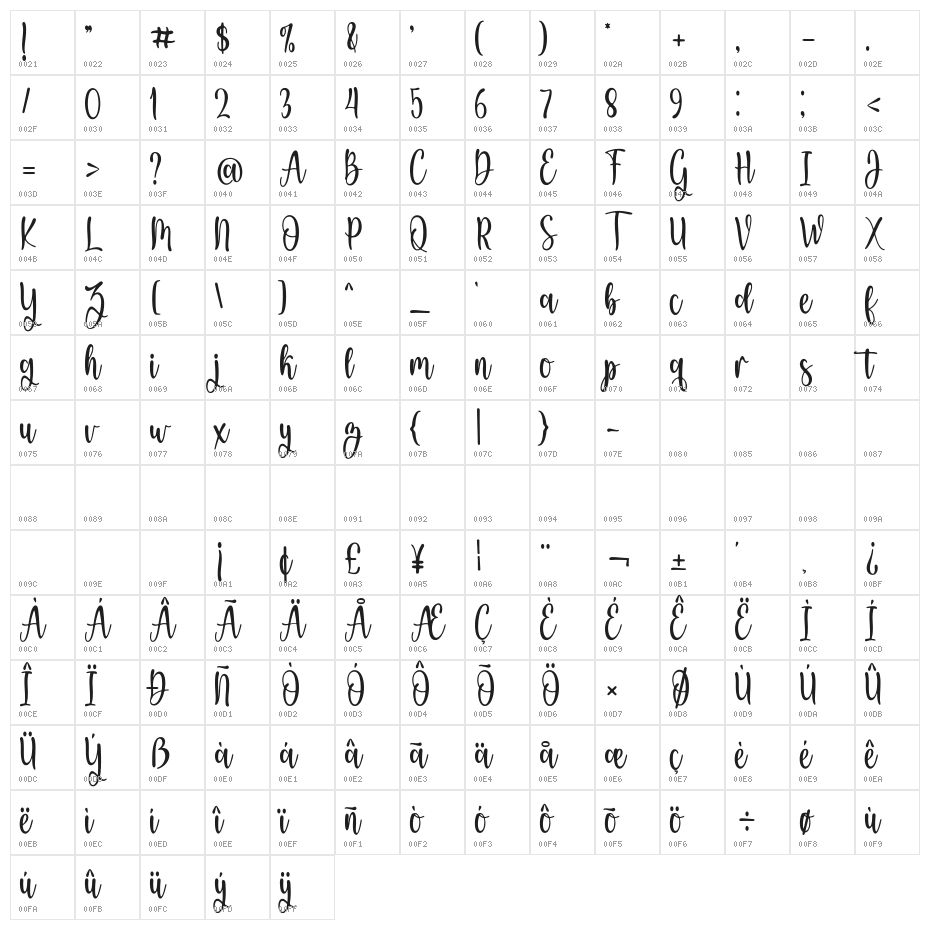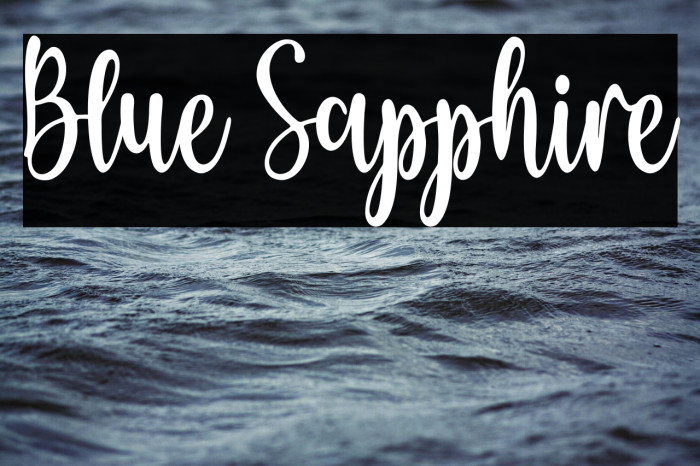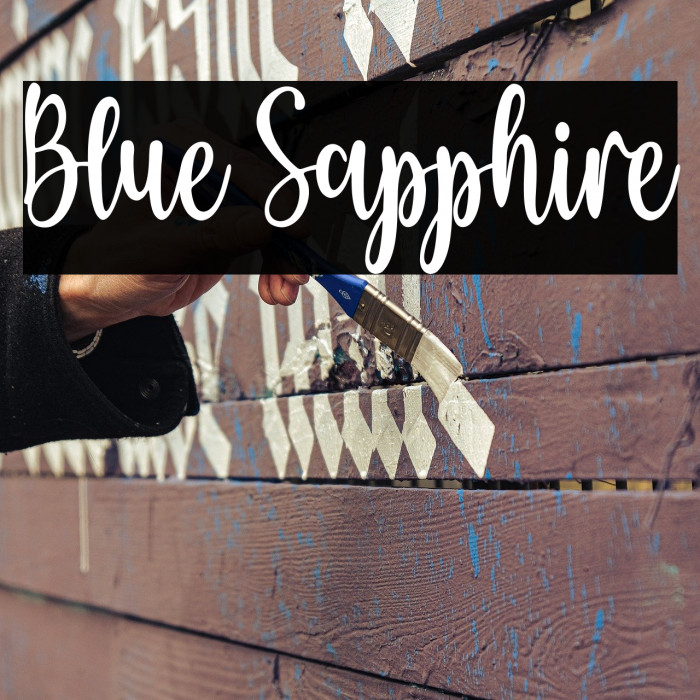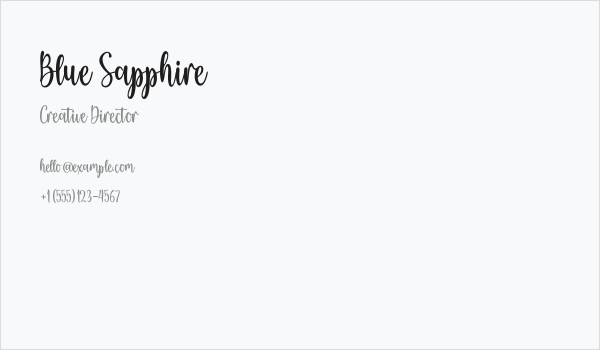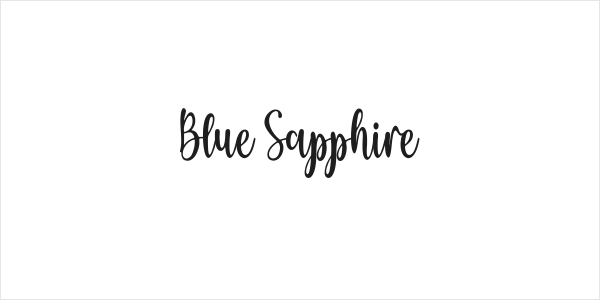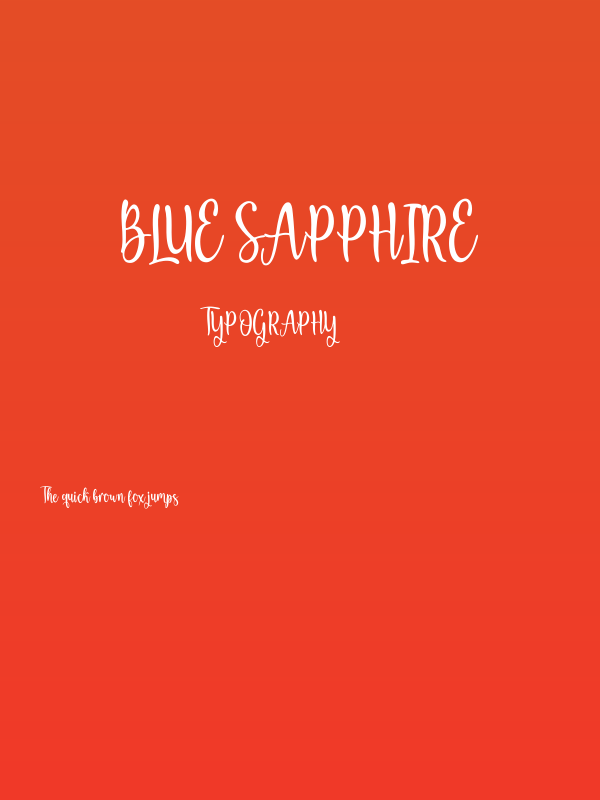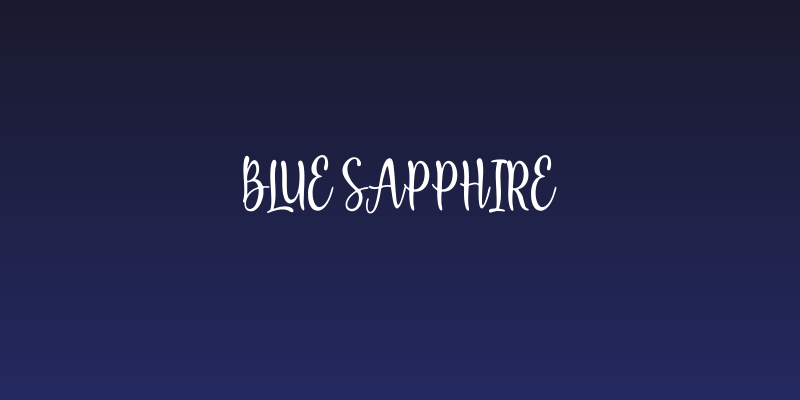
Blue Sapphire Font
Blue Sapphire Description
This font features a playful and artistic script style with a hand-drawn appearance. The letters are characterized by their fluid, cursive strokes and varying thickness, giving them a dynamic and lively feel. The uppercase letters are bold and expressive, while the lowercase letters maintain a consistent flow, enhancing readability. Numbers and special characters are designed to match the whimsical style, making them suitable for creative and informal contexts. The overall design is cohesive, with a charming and approachable aesthetic that adds a personal touch to any project.
| Proposed Projects | Ideal for greeting cards, invitations, logos, and branding materials that require a personal and creative touch. |